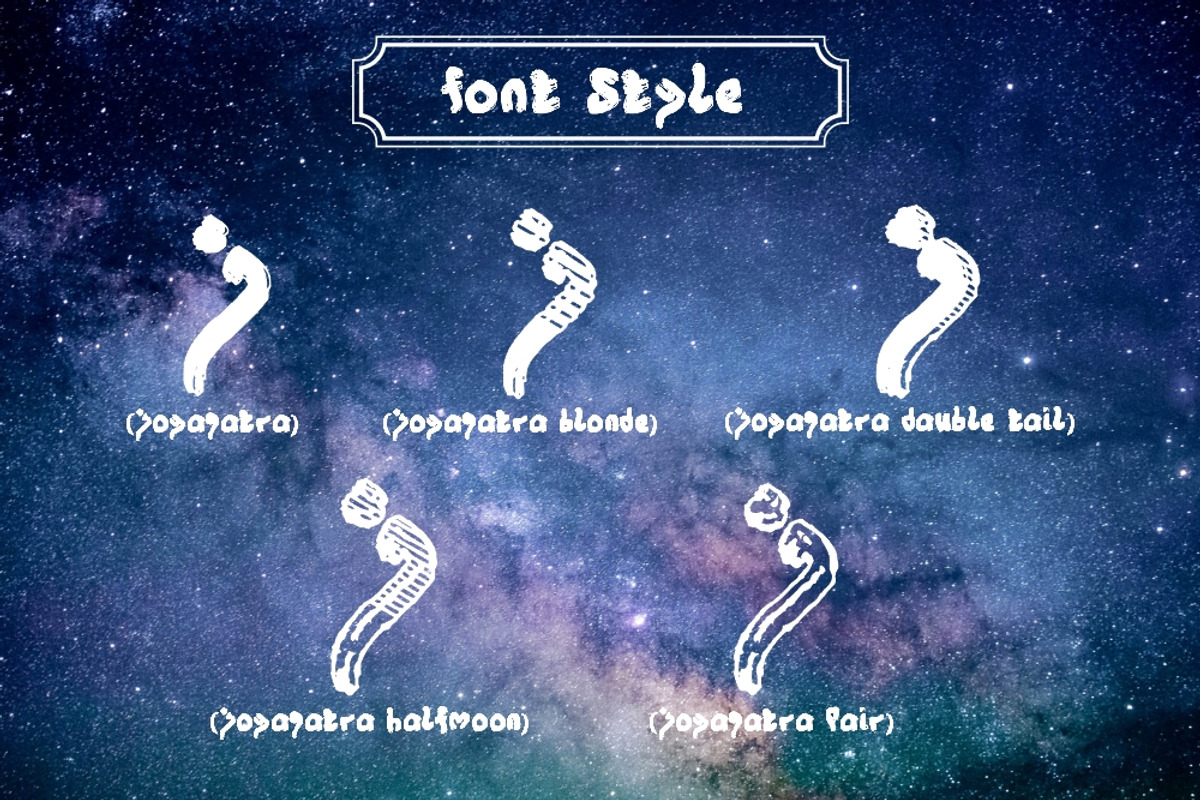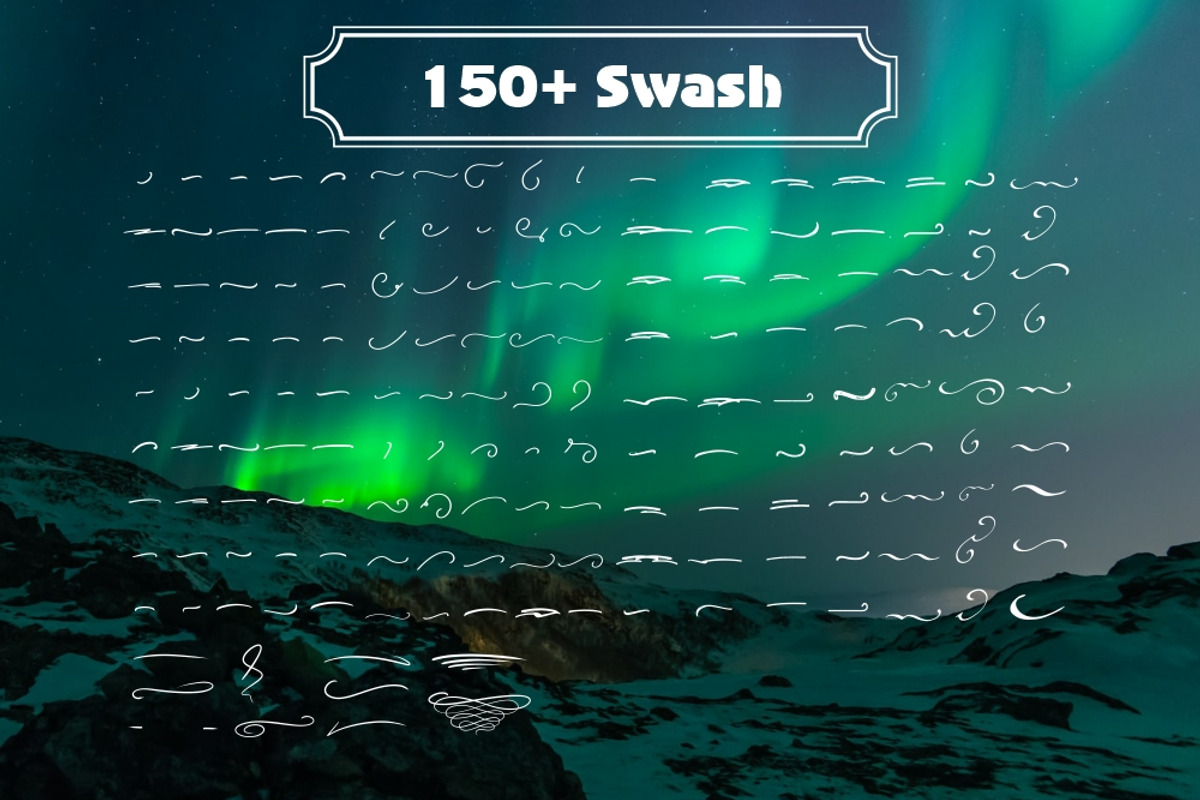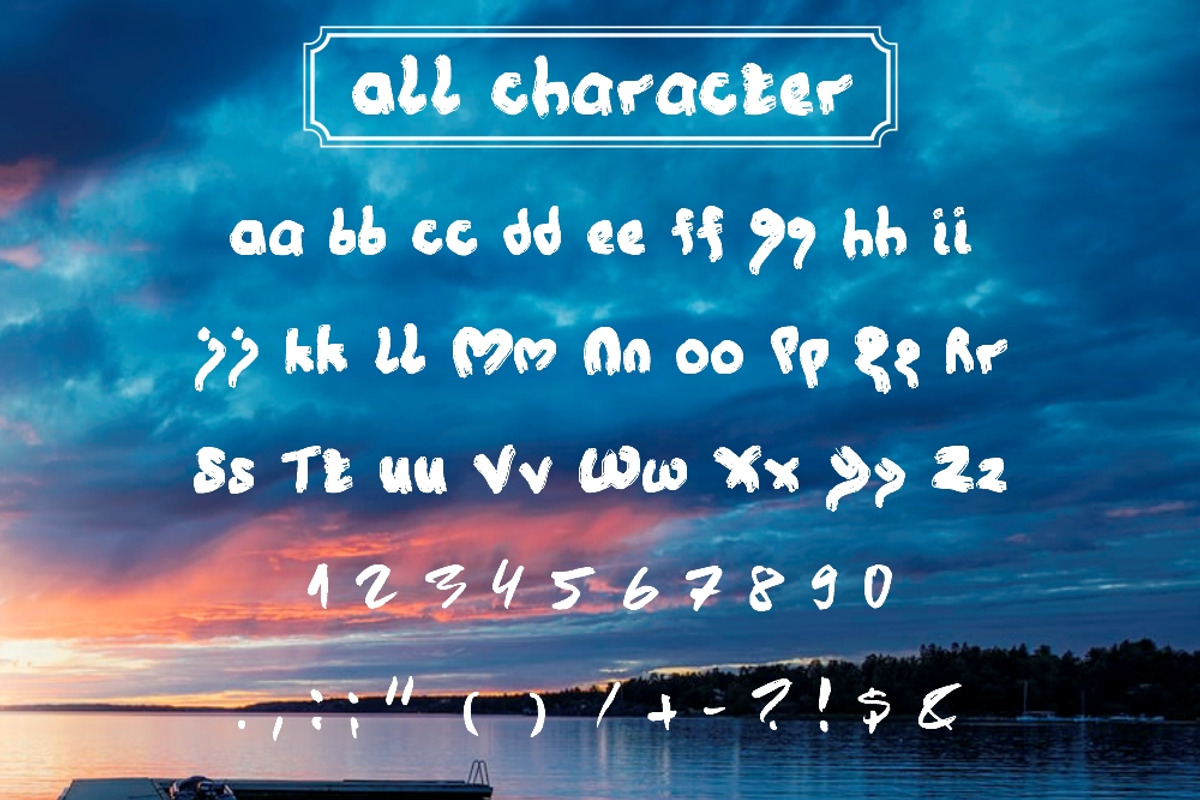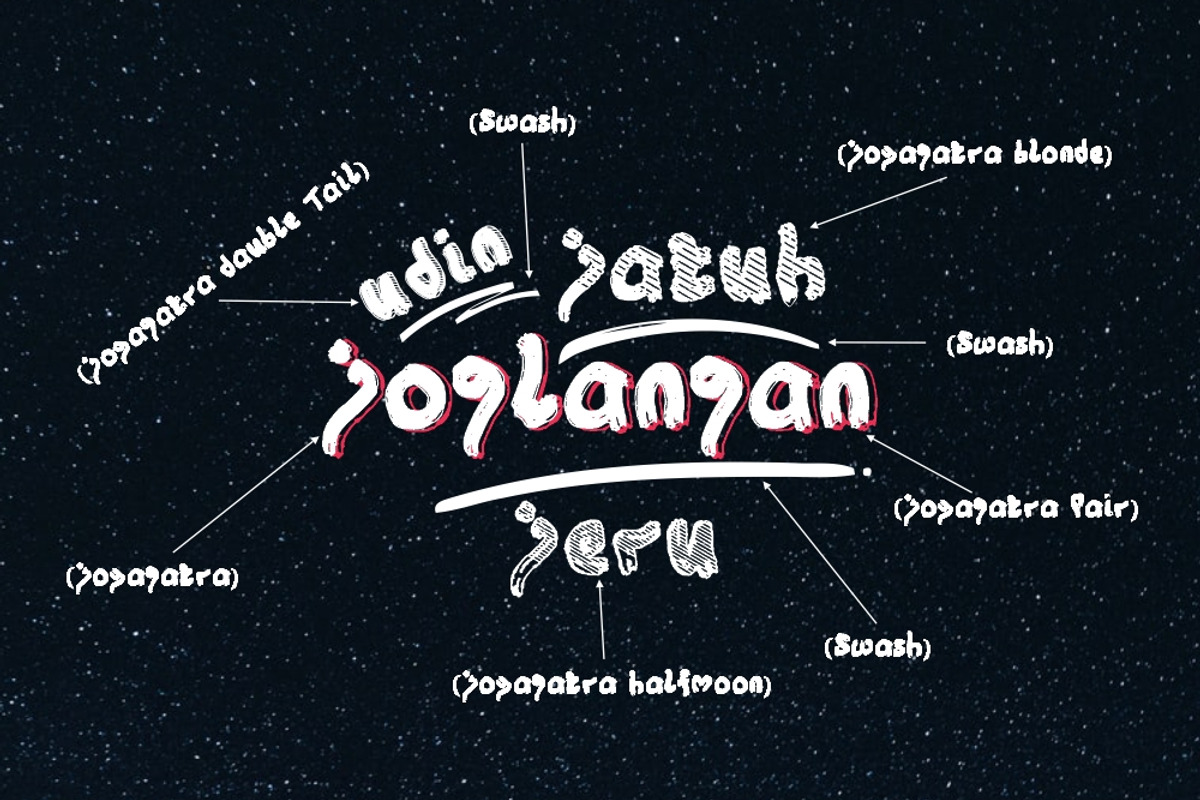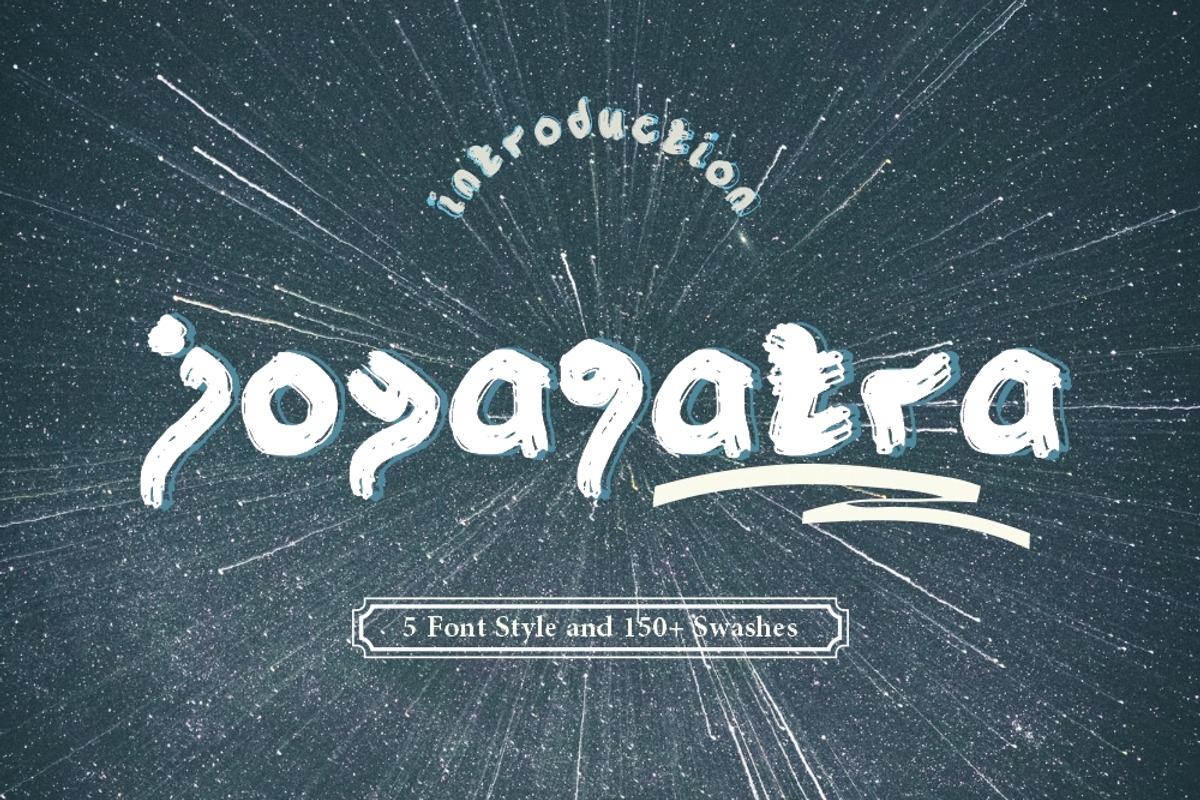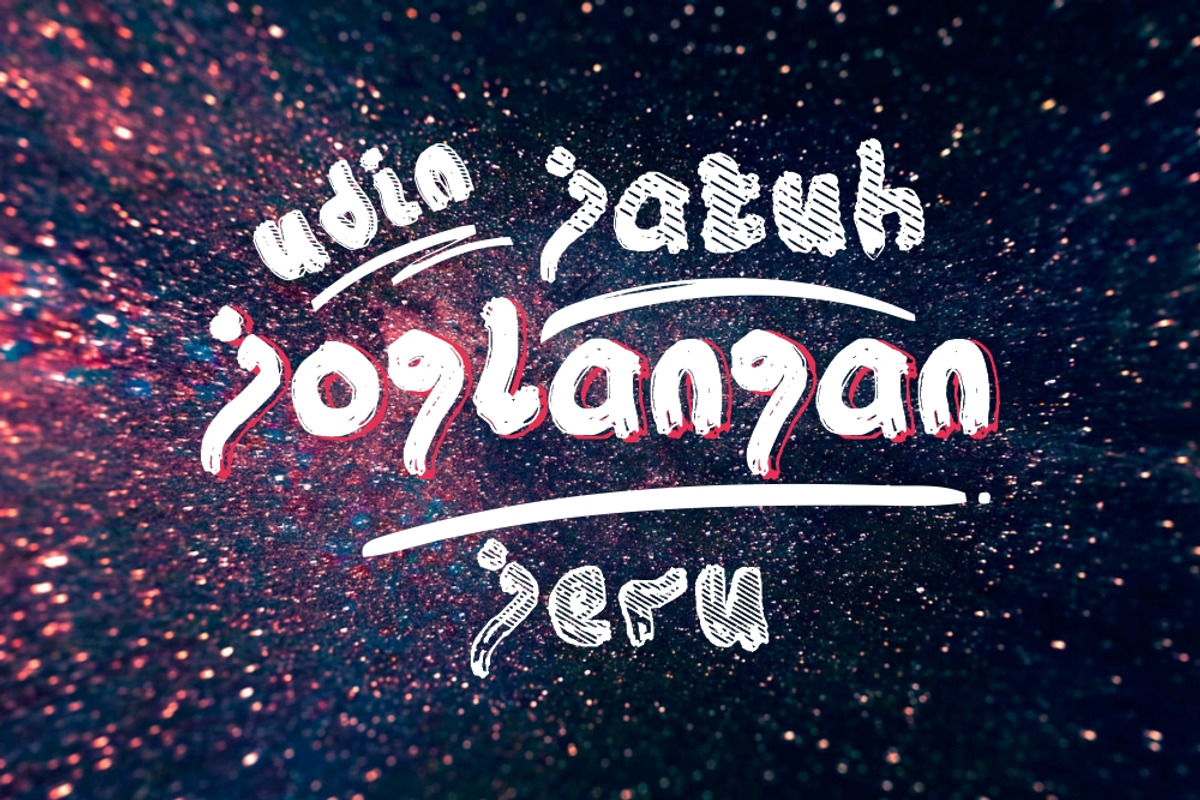
Joyagatra - 5 Font styles
Joyagatra - 5 Font styles and 150+ Swashes
Joyagatra represents the best of organic curves with sharp modern edges. Sophisticated and edgy, it's everything you want out of a display font. It looks amazing at large sizes and, also, small sizes.
Joyagatra Dauble tail
- Joyagatra Regular
- Joyagatra Blonde
- Joyagatra Dauble Tail
- Joyagatra Halfmoon
- Joyagatra Pair